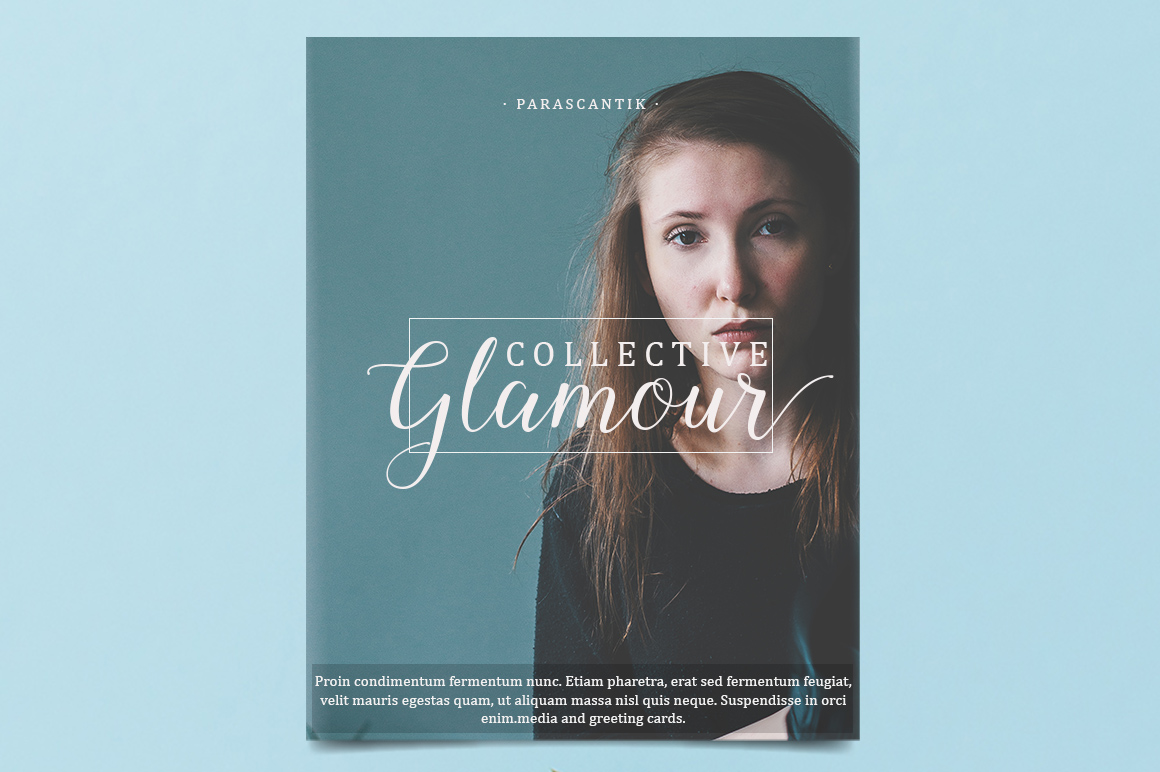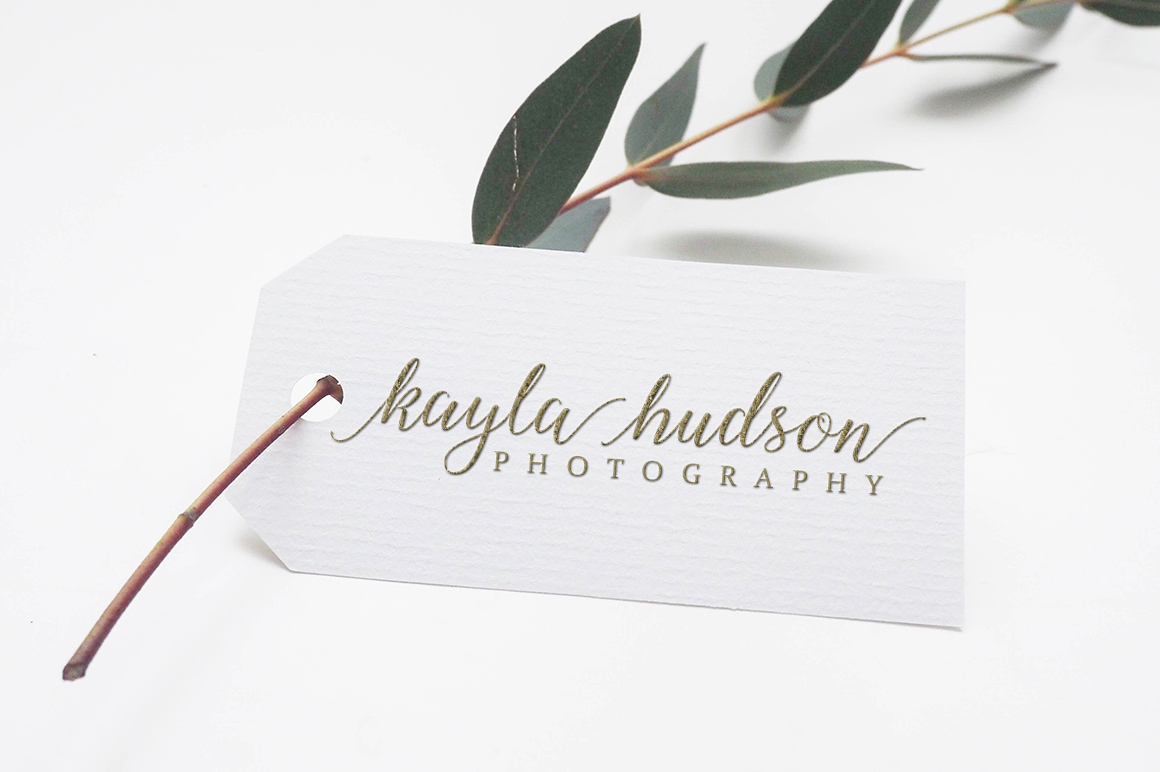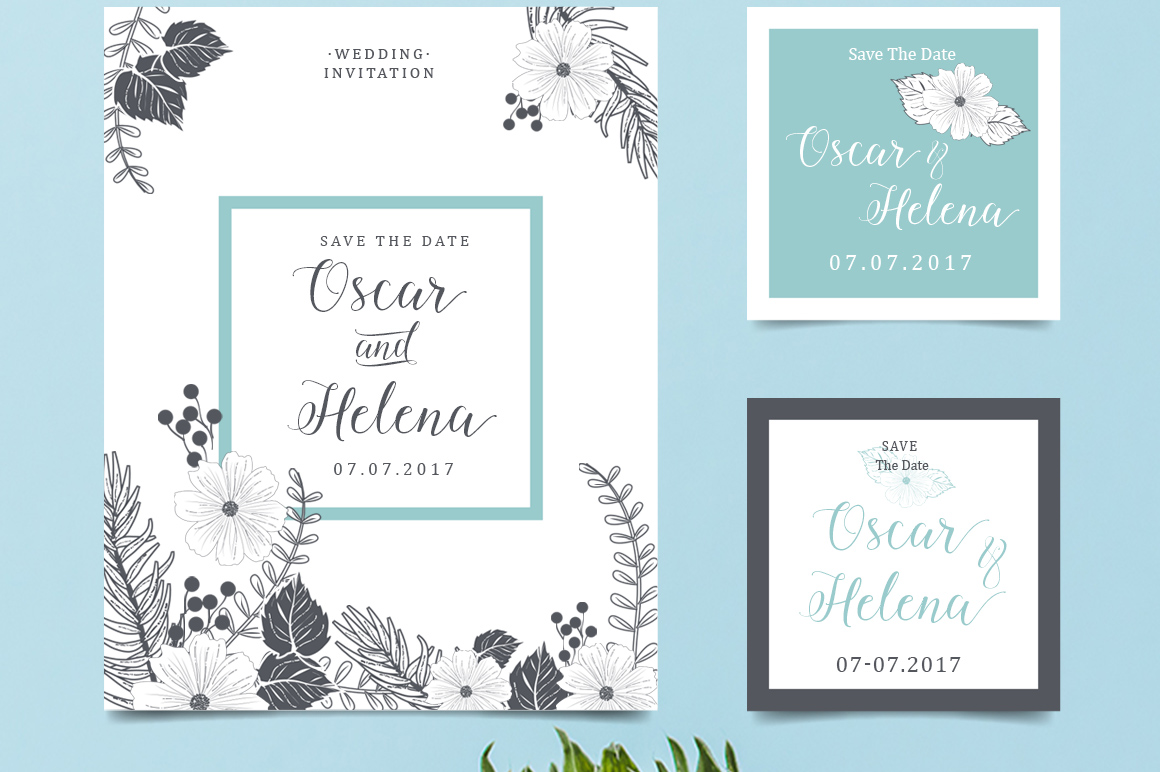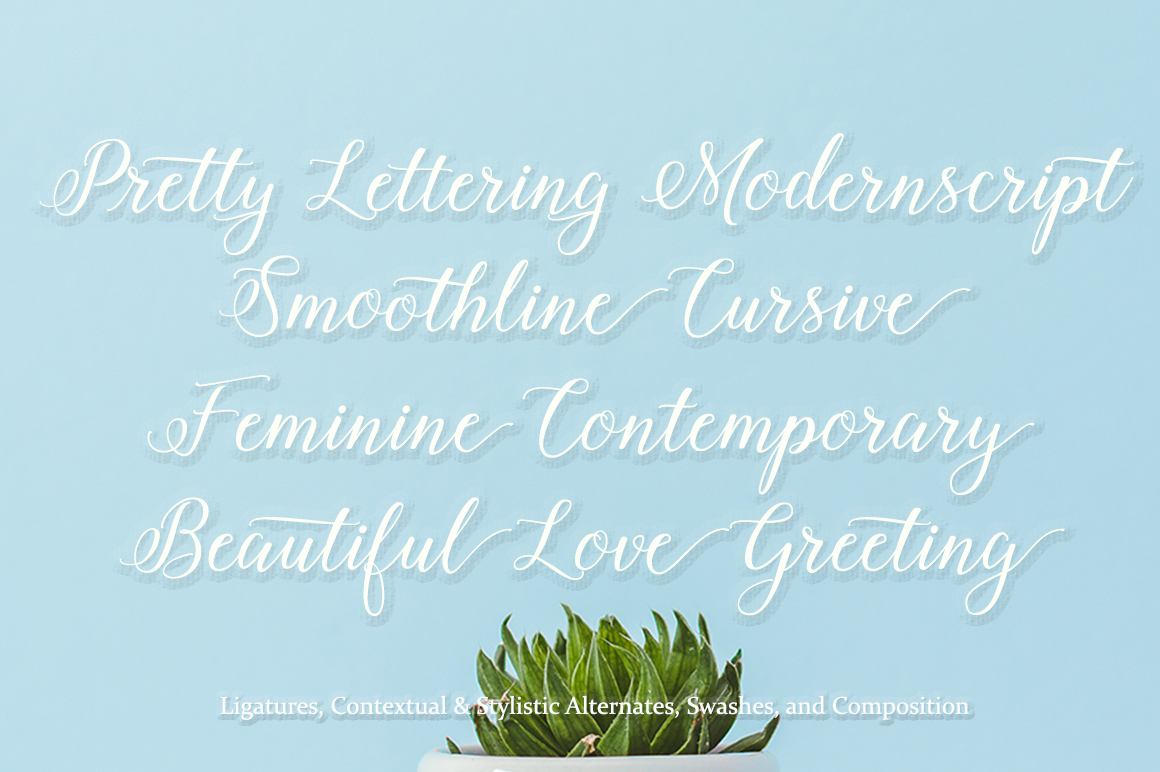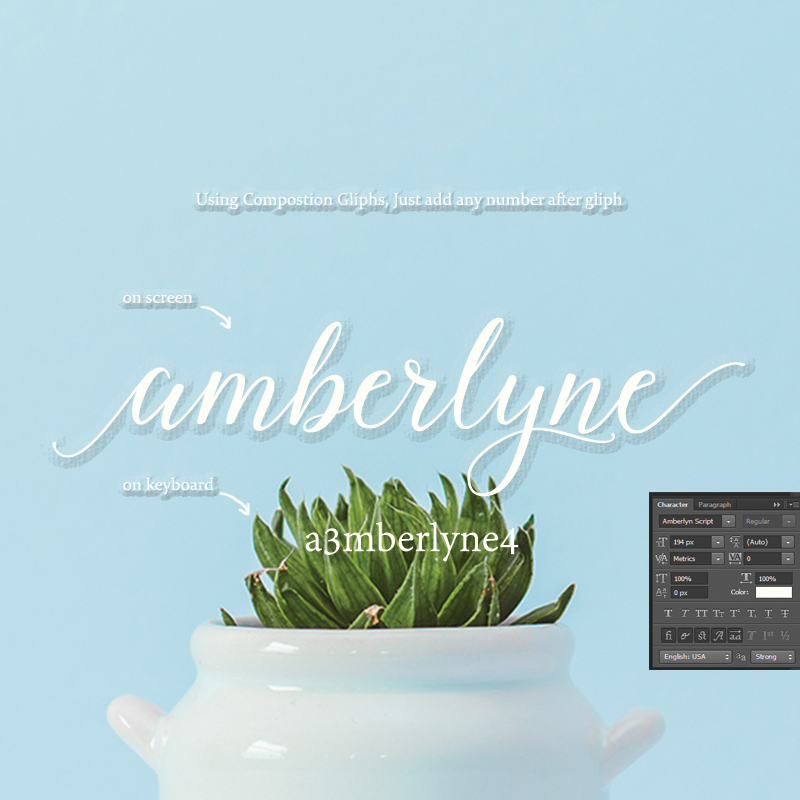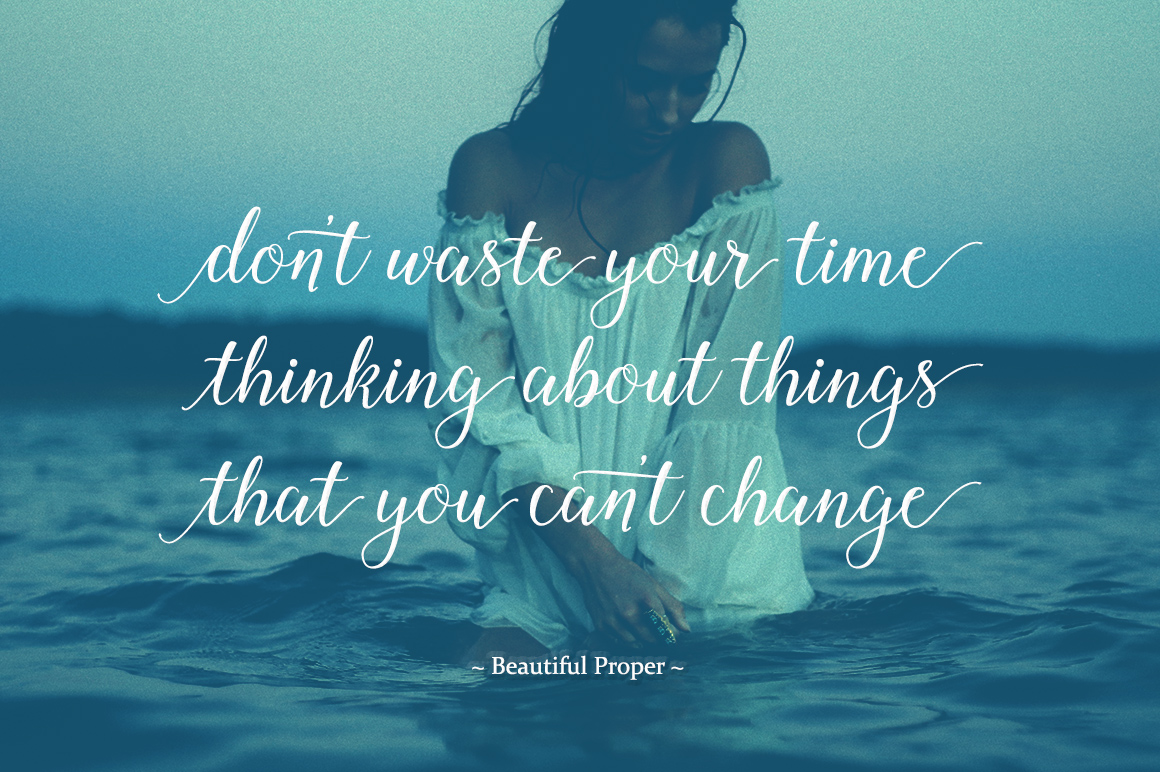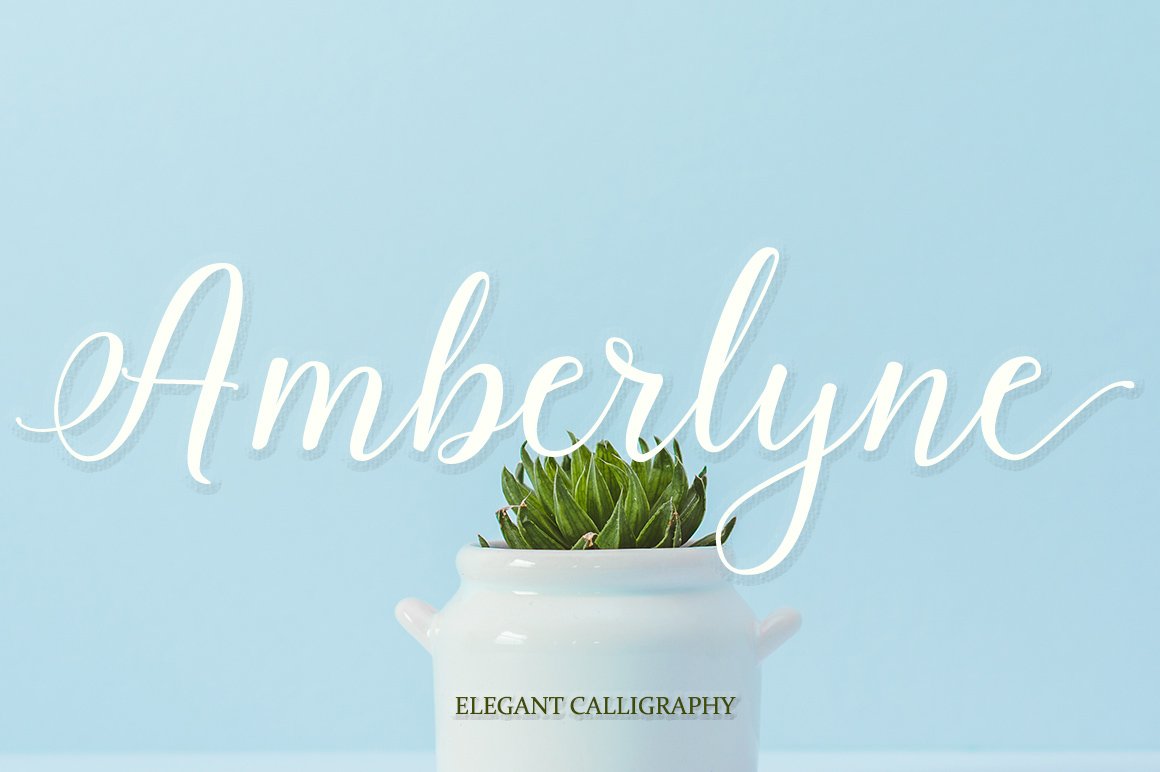
The Perfect Touch of Whimsy: Unlocking the Magic of Amberlyne Font
Have you ever found yourself scribbling away in a journal, pouring your heart onto the page, and suddenly, the words take on a life of their own? The ink flows effortlessly, and the characters dance across the paper, transporting you to a world of pure imagination. That’s the magic of creating with the right tools – and for designers, the Amberlyne Font is one of those special tools.
This beautiful handwritten font is more than just a typeface – it’s an invitation to express yourself with love and care. With its soft, gentle curves, Amberlyne Font brings a touch of whimsy to any project, from elegant invitations to playful social media posts. Whether you’re a seasoned pro or a budding designer, this font is a valuable addition to your toolkit, offering endless possibilities for creative expression.
Amberlyne Font Key Features
- Font Family: Amberlyne Font, a unique, hand-drawn font with a vintage aesthetic.
- Size: Available in multiple sizes, ranging from 8 points to 100 points, with precise control over font scaling.
- Resolution: Optimized for high-resolution displays, including 4K and Retina displays, with a resolution of up to 300 DPI.
- Unique Characteristics: Distinctive, hand-crafted design elements, including subtle texture and imperfections, add to the font’s unique charm.
Amberlyne Font Review
As a designer, I recently had the chance to work with the Amberlyne font, and I must say it’s been a mixed bag for me. ✨ On the plus side, I think the font’s elegant and sophisticated feel makes it perfect for high-end branding or luxury packaging. The subtle curves and refined lines give it a sense of sophistication that’s hard to replicate with other fonts.
- The Amberlyne font is particularly effective in titles and headings, where its boldness and elegance really shine.
- The font’s high x-height makes it easy to read, even at smaller font sizes.
- Amberlyne is a great choice for anyone looking for a font with a touch of vintage charm.
⚠️ However, I do have a few concerns with the font. First, the font’s weight range is somewhat limited, making it difficult to use in body text. Additionally, the font’s spacing can be a bit tight, which may make it difficult to read at larger font sizes.
Overall, I think the Amberlyne font is a solid choice for designers looking for a sophisticated, high-end font. While it may not be perfect for every project, it’s definitely worth considering for those looking to add a touch of elegance to their designs.
Amberlyne Font is ideal for:
- Designing invitations and event materials.
- Creating artistic and creative content.
- Adding a touch of elegance to presentations and documents.
Alternatives to Amberlyne Font
Bodoni Moda
Bodoni Moda is a modern serif font with elegant and sophisticated lines. It is perfect for use in formal invitations, business cards, and high-end branding. This font is more elegant and refined compared to Amberlyne Font, which has a more vintage and distressed look.
Playfair Display is a luxurious and high-end serif font with intricate details and ornate flourishes. It is ideal for use in premium packaging, luxury branding, and high-end publications. This font is more elaborate and ornate compared to Amberlyne Font, which has a more subtle and understated look.
Didot is a classic and sophisticated serif font with a long history of use in high-end publications and luxury branding. It is perfect for use in formal invitations, business cards, and premium packaging. This font is more timeless and classic compared to Amberlyne Font, which has a more modern and trendy look.